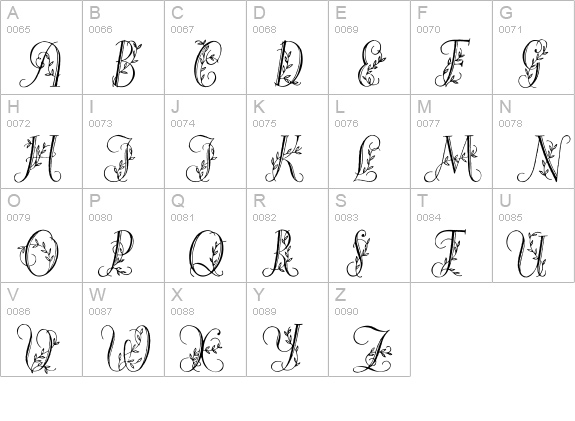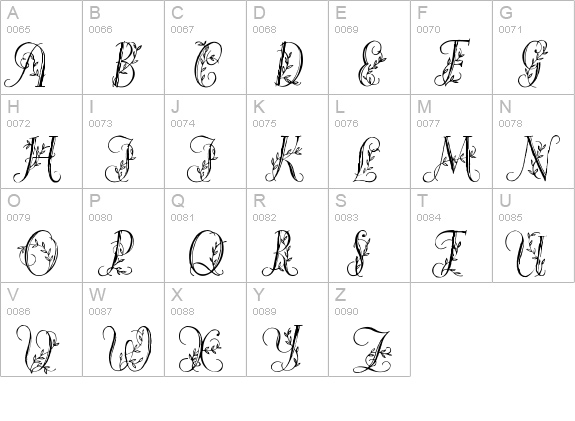
Springtime_Flourish Font Details
Springtime_Flourish is a whimsical and delightful font that perfectly captures the essence of the blooming season. With its graceful curves and playful flourishes, this font is sure to add a touch of charm and elegance to any design project. The letters dance across the page, evoking feelings of joy and renewal. This font is not only visually captivating but also versatile, making it suitable for a wide range of applications. Whether you're designing a wedding invitation, a greeting card, or a spring-themed poster, Springtime_Flourish will bring your creative vision to life. What makes Springtime_Flourish even more appealing is the fact that it is free. Yes, you read that right - this stunning font is freely available to download at FontsMarket.com. You don't have to break the bank to add a touch of beauty to your designs. Simply head over to FontsMarket.com, find Springtime_Flourish, and start creating. Don't miss out on this opportunity to enhance your design projects with the enchanting beauty of Springtime_Flourish. Download it for free today and let your creativity blossom.